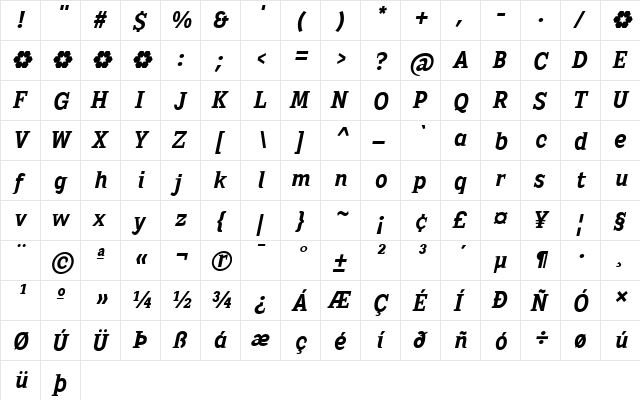
Sextan Bold Italic
| Foundry | deFharo |
| Designer | Fernando Haro |
Design Context for Sextan Bold Typeface
Sextan Bold offers clean, dependable letterforms without strong stylistic allegiance, making it a practical choice for designers who need flexibility. The slanted form adds forward momentum and visual energy. Its bold stroke weight gives it real presence on the page.